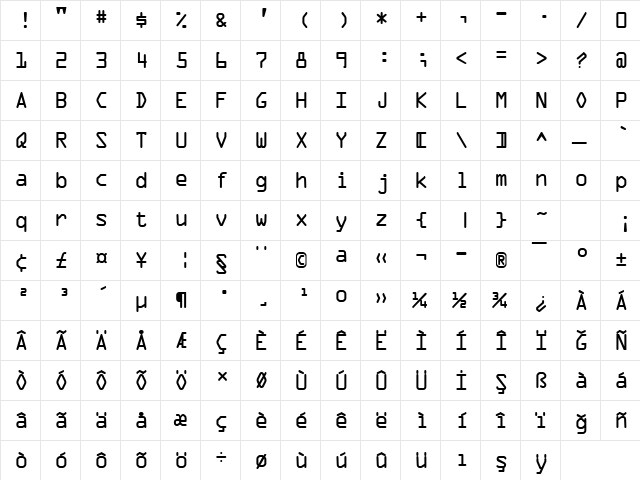
OCR A Extended Digiscream Regular
Design Context for OCR A Extended Digiscream Typeface
OCR A Extended Digiscream offers clean, dependable letterforms without strong stylistic allegiance, making it a practical choice for designers who need flexibility.